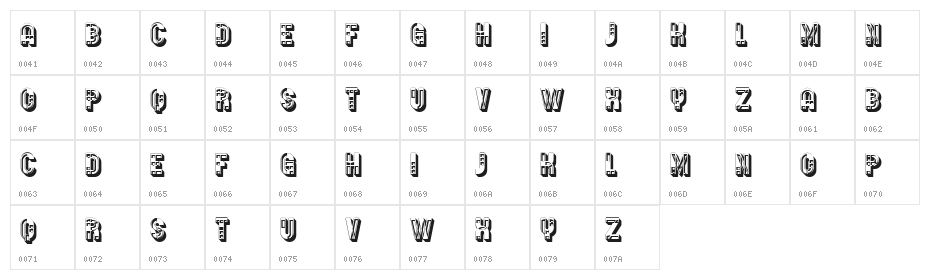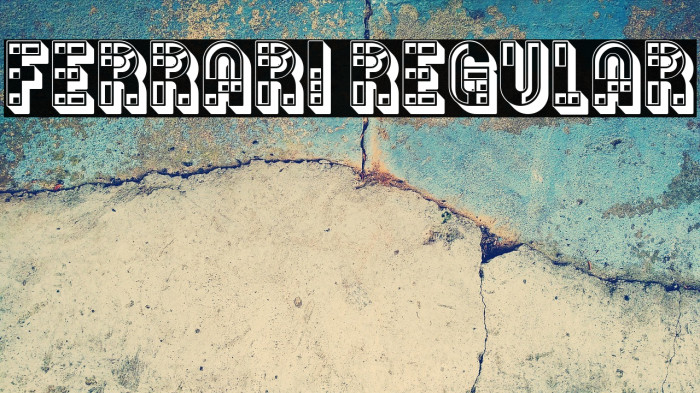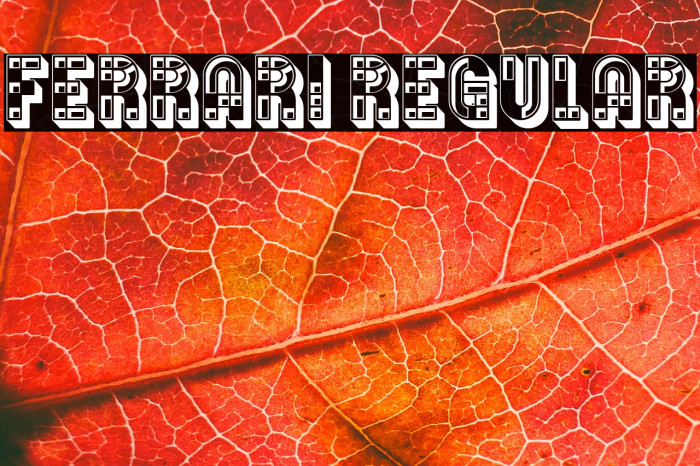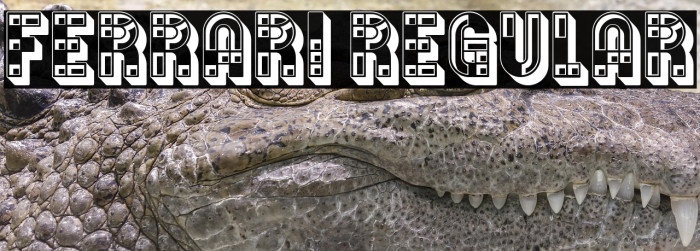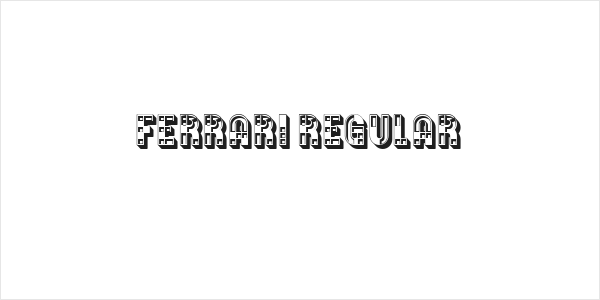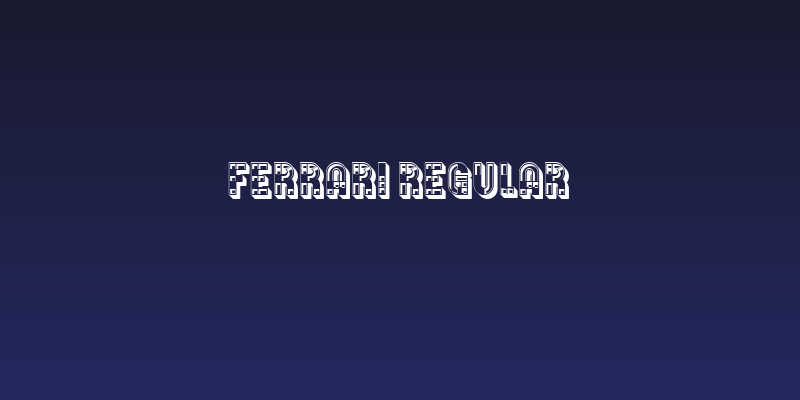
Ferrari Regular Font
Ferrari Regular Description
This font features a bold, decorative style with a three-dimensional effect. Each character is outlined with a thick black shadow, giving it a striking and dynamic appearance. The interior of the letters is filled with intricate patterns, including stripes and dots, adding to its visual complexity. The font is highly stylized, making it ideal for eye-catching designs. Its boldness and unique design elements make it stand out, perfect for projects that require a strong visual impact.
| Proposed Projects | Ideal for posters, logos, headlines, and any design requiring a bold statement. |